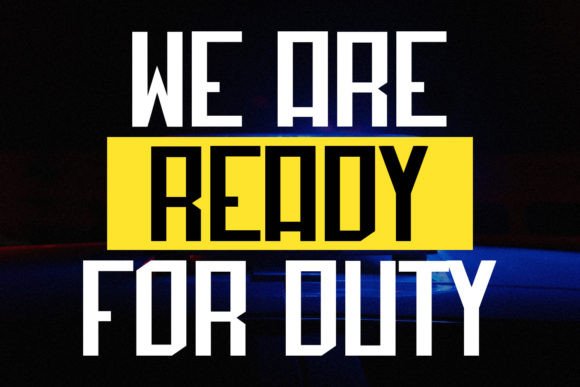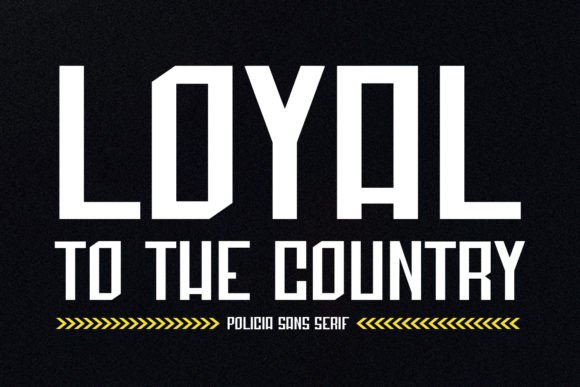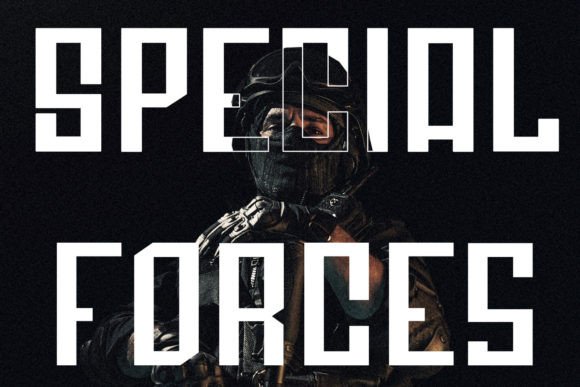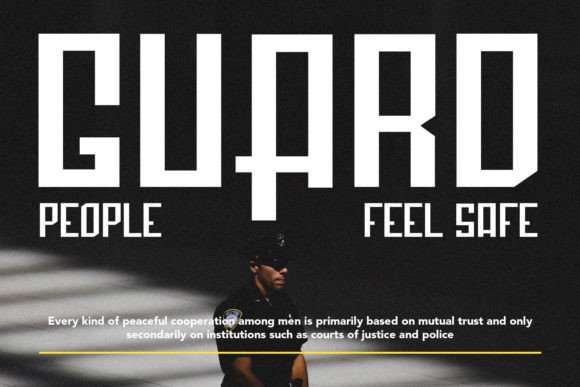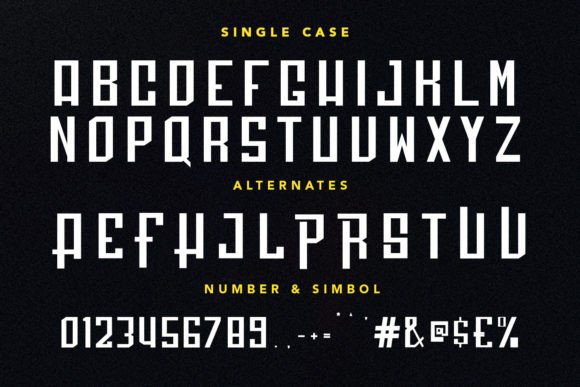
Introduction to Policia Font
As designers, we’ve all been there – staring at a blank canvas, searching for the perfect font to bring our creative vision to life. It’s that moment when the right font can make all the difference between a good design and a great one. And that’s exactly what the Policia Font offers – a unique blend of fun and sophistication that’s sure to elevate any project.
With its bright and playful personality, the Policia Font is a design resource that’s perfect for a wide range of applications, from branding and logos to candy and food packages. Its PUA encoding makes it easy to access all the amazing glyphs and ligatures, giving designers the freedom to get creative and push the boundaries of their work.
- High-quality design: This font is designed with precision and care, resulting in a high-quality and professional look.
- Unique characteristics: Policia Font features a distinctive and modern design, making it an excellent choice for creative projects that require a unique touch.
- Perfect for creative projects: This font is ideal for use in graphic design, web design, and other creative projects that require a high-quality and professional font.
Honest Review: Policia Font
I recently stumbled upon the Policia Font, and I must say, it’s a great addition to my design resource library. As a designer, I’m always on the lookout for high-quality fonts that can elevate my creative projects.
Here are some of the things that work well about the Policia Font:
- ✨ High-quality design: The font is well-crafted and looks professional.
- ✨ Versatile: It’s perfect for a wide range of creative projects.
- ⚠️ Limited font styles: The font only comes in a few styles, which may not be enough for designers who need a wide range of options.
- ⚠️ Not suitable for small text: The font may not be the best choice for small text, as it can be difficult to read.
Overall, I’m impressed with the Policia Font, and I would definitely recommend it to designers who are looking for a high-quality, free font for their creative projects.
Policia Font
Combine Policia Font with other design elements to create a unique and eye-catching design.
Common Use Cases for Policia Font
Headlines and titles for creative projects.
Body text for blogs, articles, and social media posts.
Brand identities and logos for businesses and organizations.